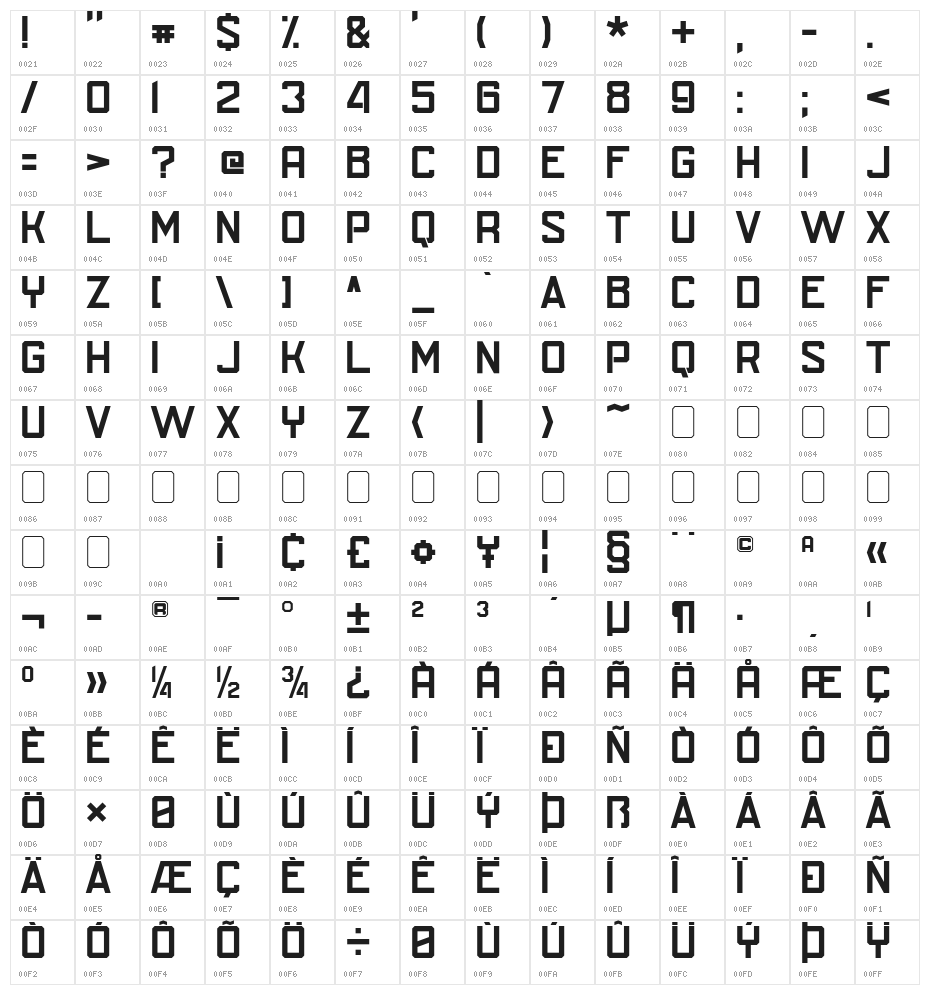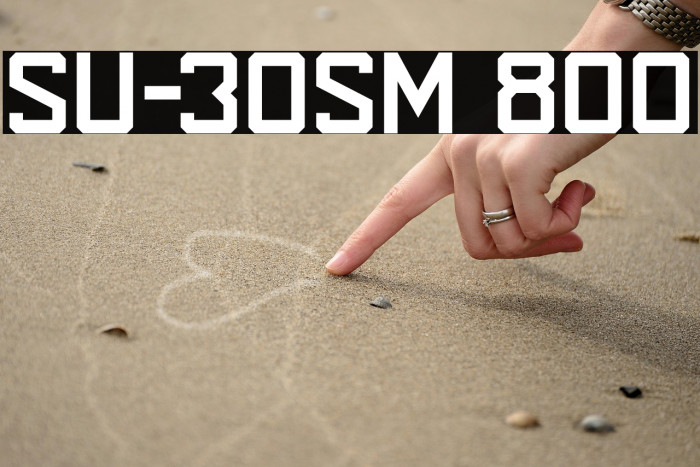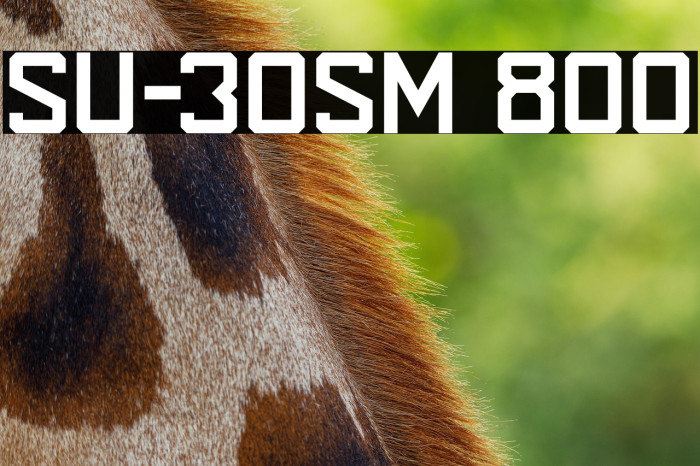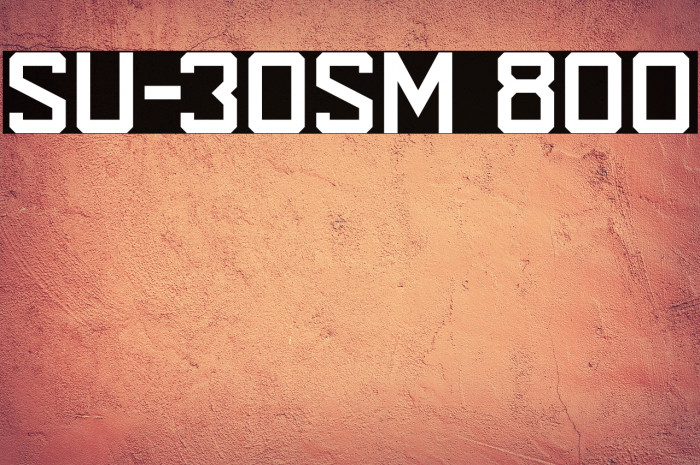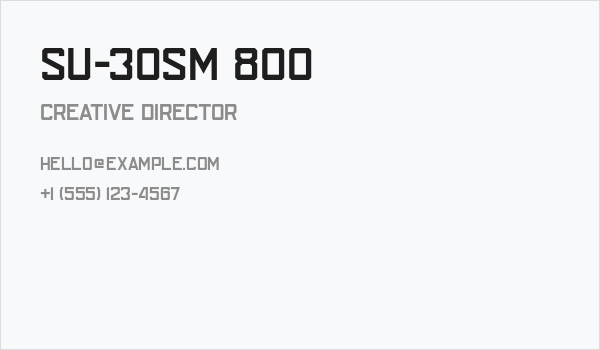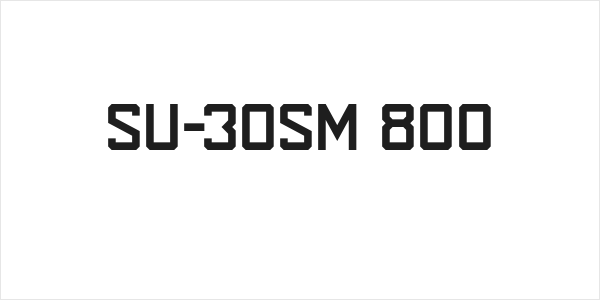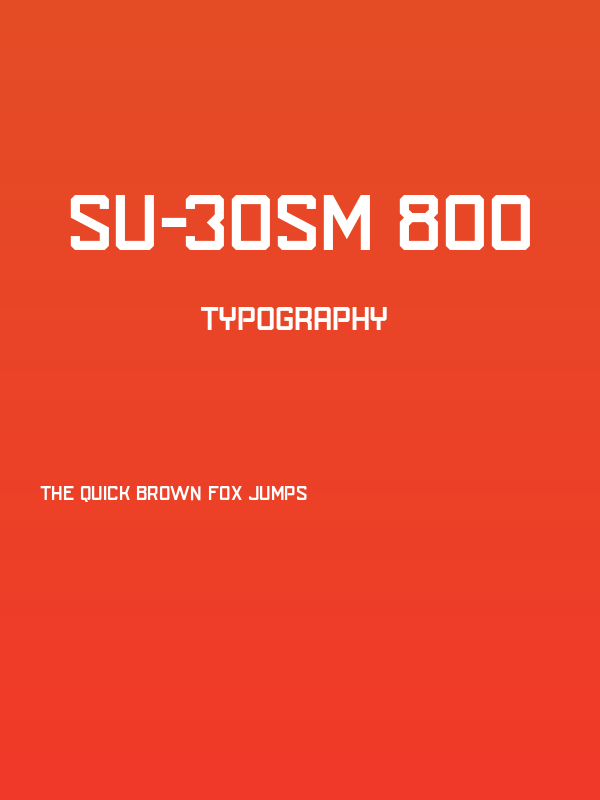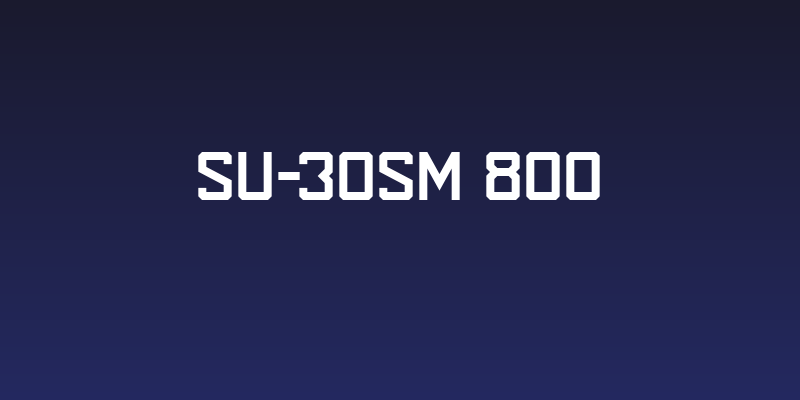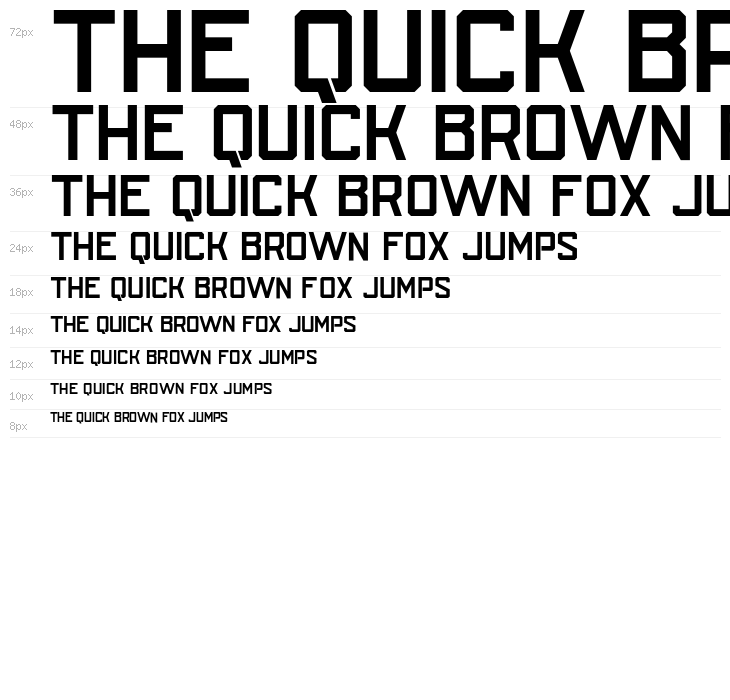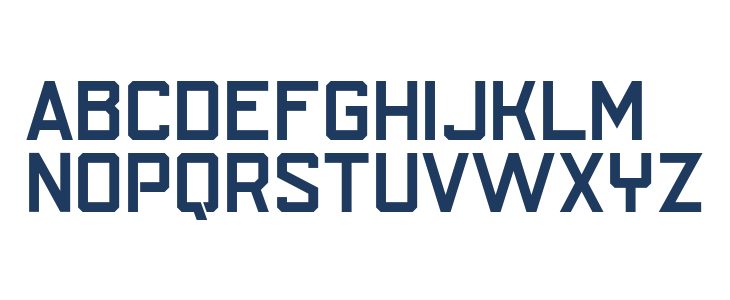
SU-30SM 800 Font
SU-30SM 800 Description
This font features a bold, geometric design with strong, angular lines and a modern aesthetic. The characters are uniform in height, with a consistent stroke width that gives it a sturdy and robust appearance. The uppercase letters are particularly striking, with sharp edges and a blocky structure that conveys a sense of strength and precision. The numerals and special characters maintain this cohesive style, making the font versatile for various applications. Its clean and straightforward design makes it highly legible, even at smaller sizes.
| Proposed Projects | Ideal for use in technology branding, sports team logos, military-themed designs, and modern posters. |